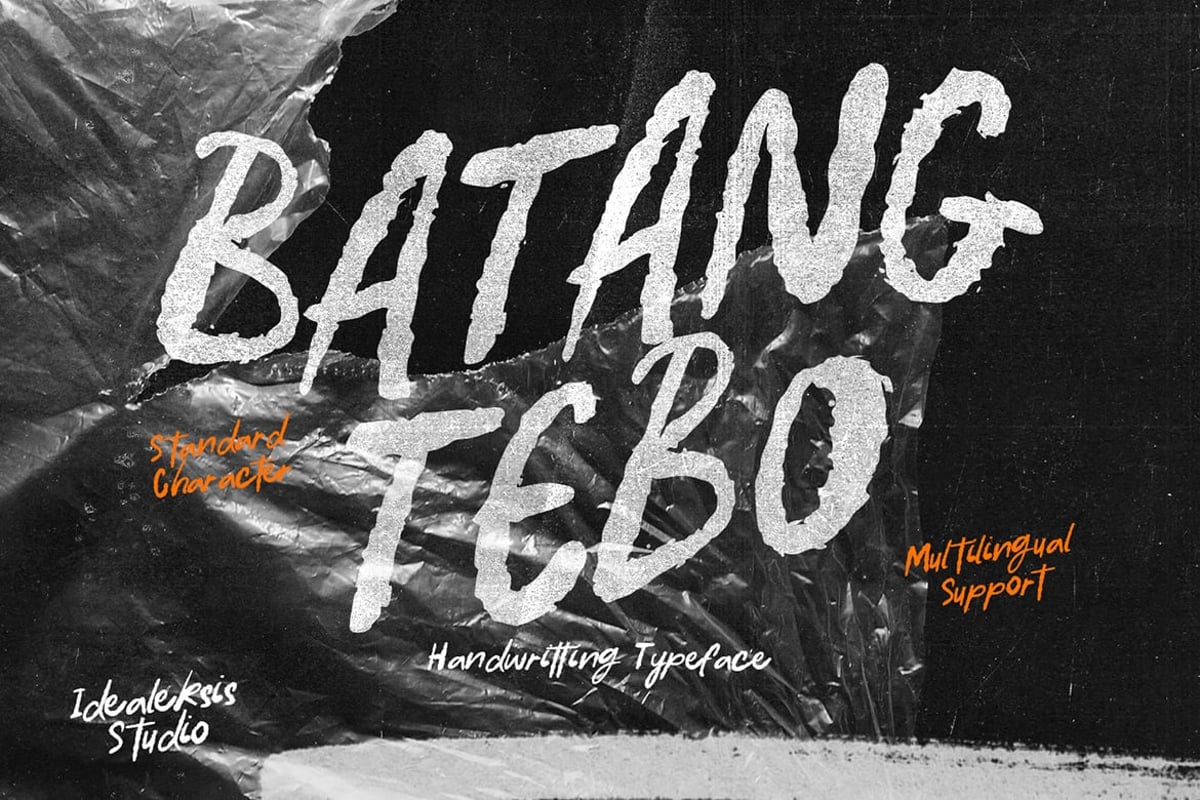
Batang Tebo - Rough Display Font
Make a bold statement with Batang Tebo's raw, textured brush strokes and authentic gritty appeal.
This rough handwritten display font delivers a textured and gritty appearance that commands attention. Its raw brush strokes create a bold and authentic vibe, making it the perfect choice for eye-catching posters and striking display work.